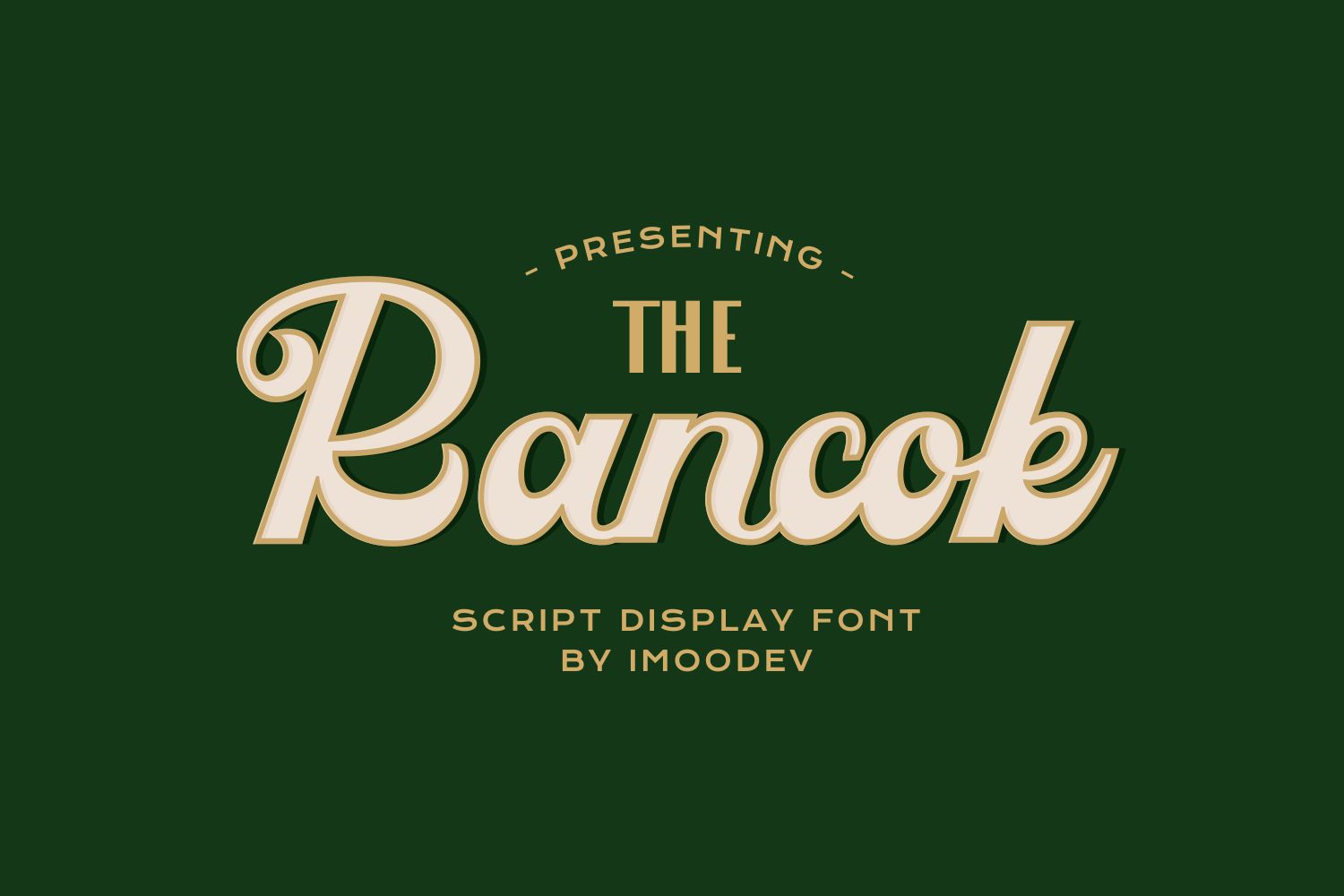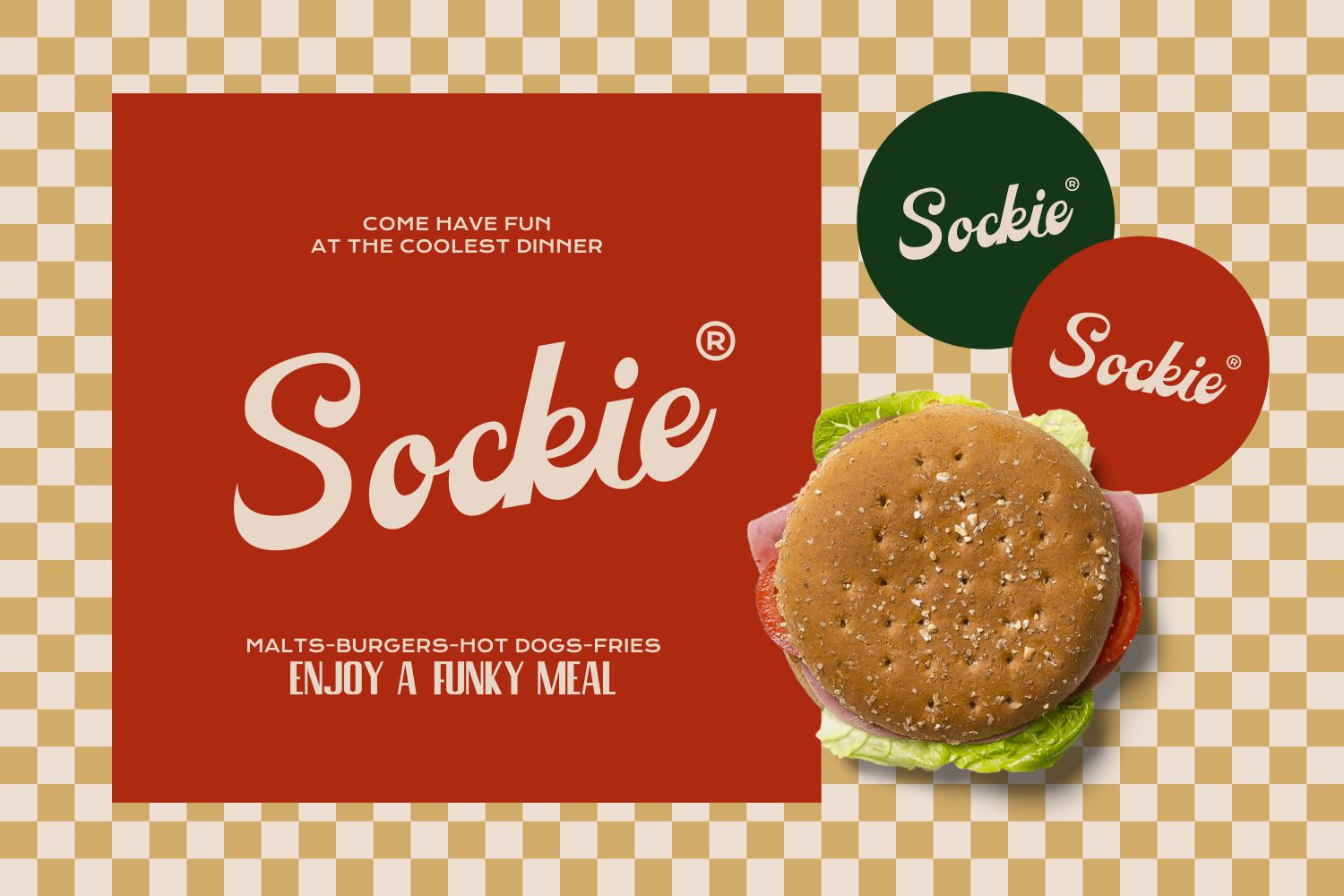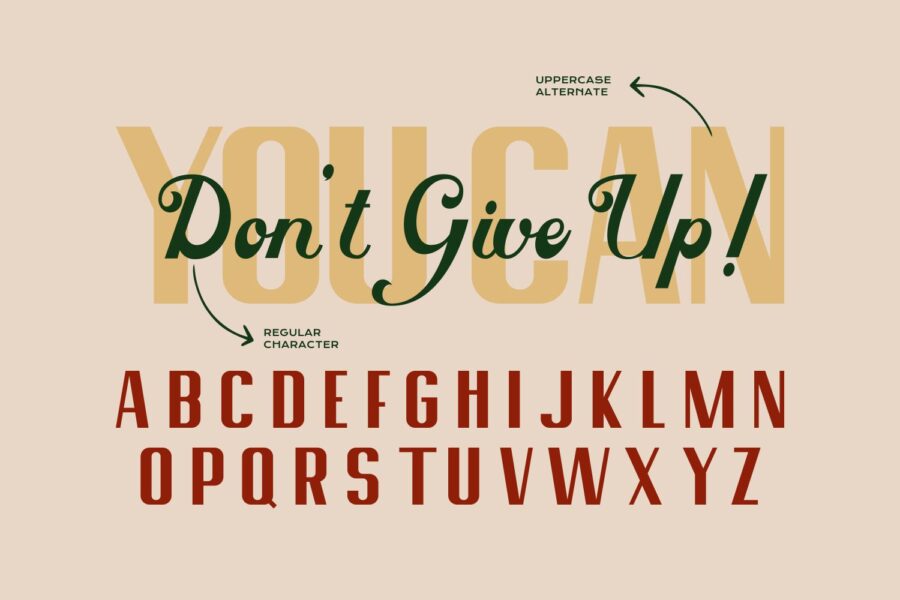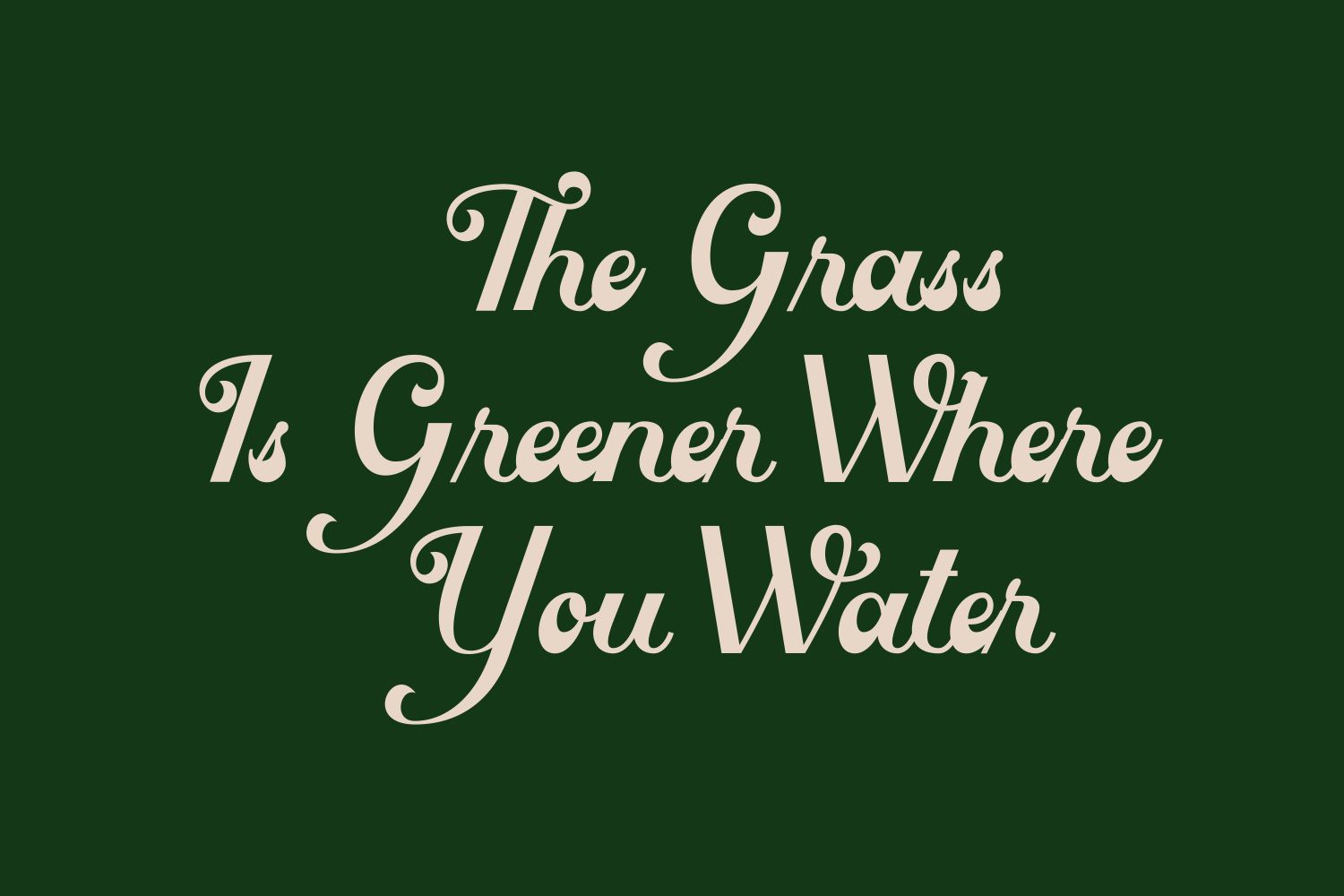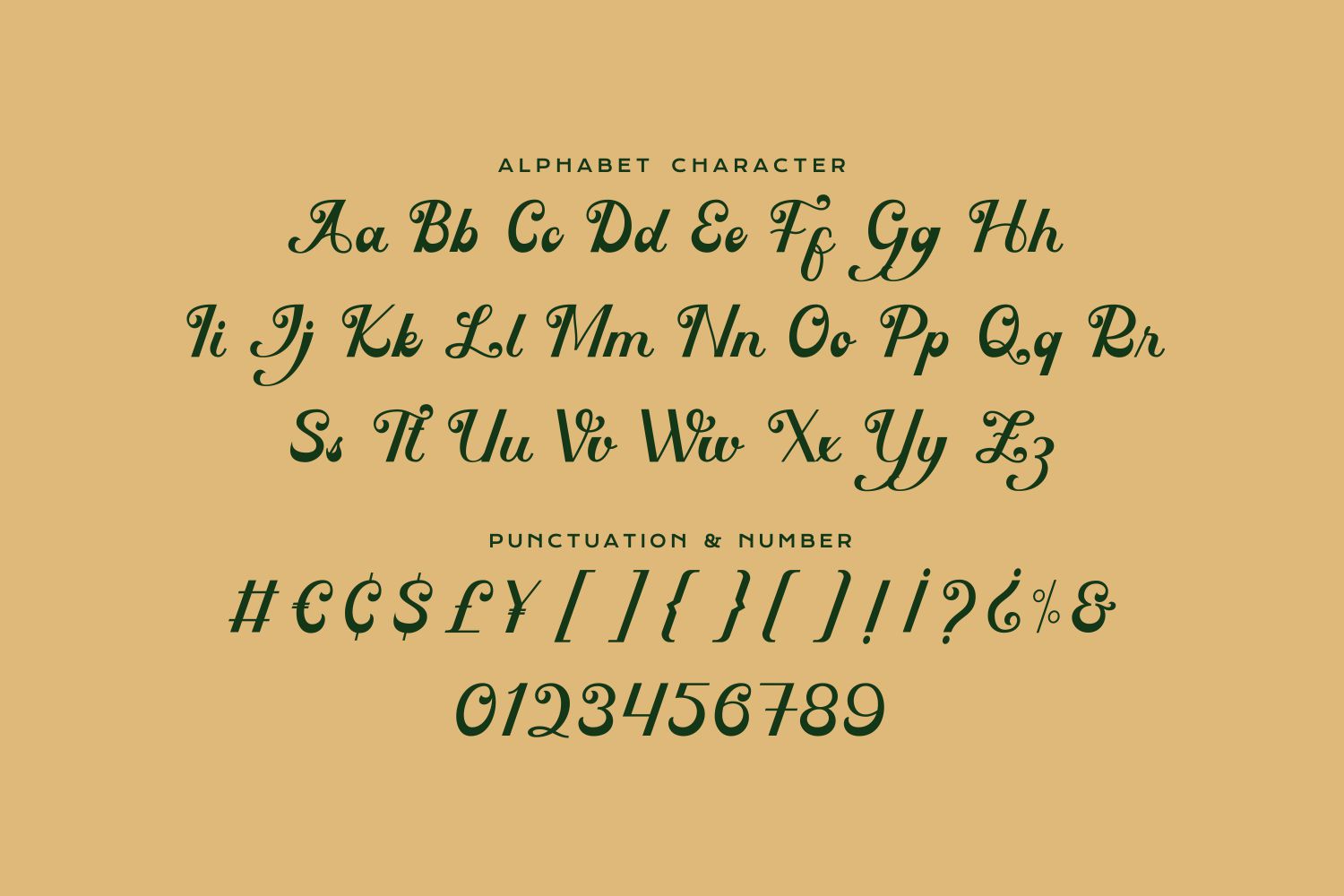
Rancok
Rancok is a stylish script display font that blends retro charm with modern versatility. Its smooth curves and bold strokes create a sense of energy and sophistication, making it perfect for branding, packaging, posters, and creative advertisements. The font’s playful yet elegant style gives any design a dynamic personality that feels both nostalgic and contemporary.
Equipped with alternates, ligatures, and multilingual support, Rancok offers flexibility for designers to craft unique layouts and standout typography. Whether used for logos, restaurant menus, product labels, or inspiring quotes, this font brings a distinctive flair that captures attention with ease. Its balance of vintage script and display aesthetics makes it an ideal choice for stylish, creative projects.